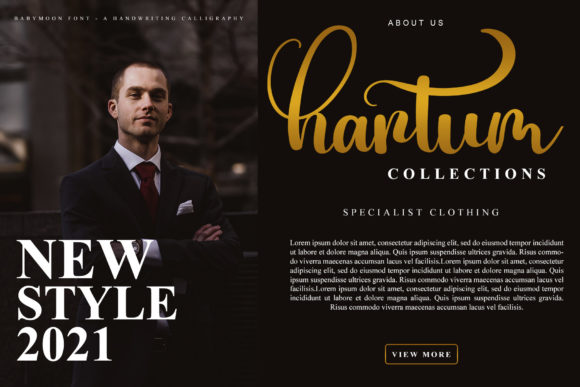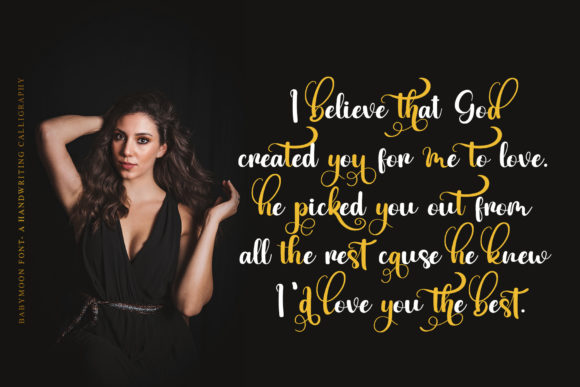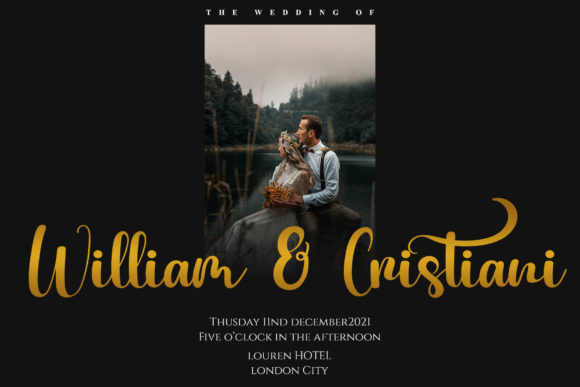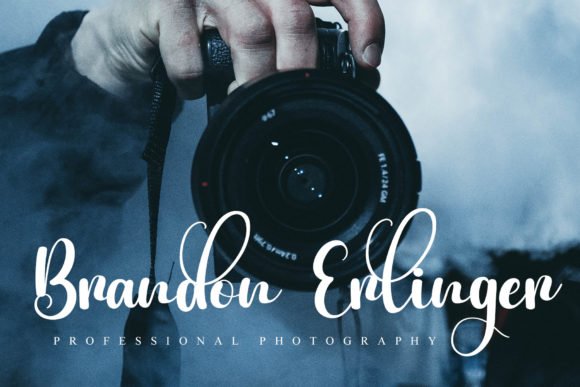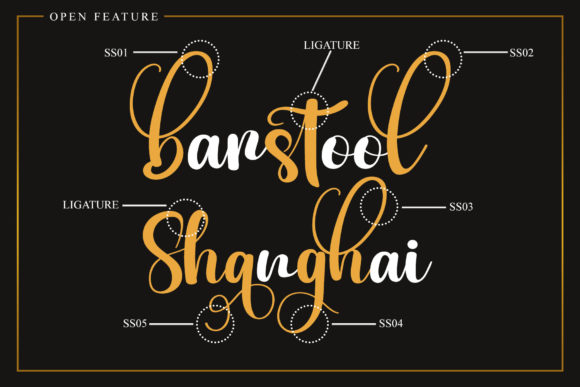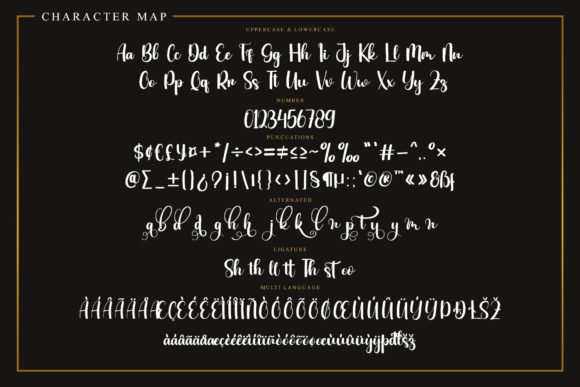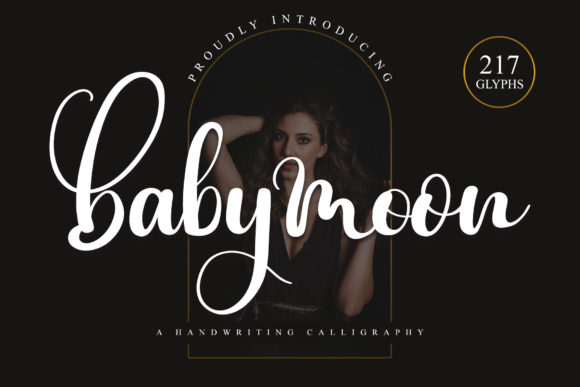
Babymoon Font: The Ultimate Guide to this Exquisite Handwritten Font
Are you a designer or crafter looking for a font that exudes elegance and sophistication? Look no further than the Babymoon Font! This stunning handwritten font is designed to capture the hearts of creatives and non-creatives alike. In this comprehensive guide, we’ll dive into the world of Babymoon Font, exploring its features, benefits, and uses.
What is Babymoon Font?
Babymoon Font is a beautifully crafted handwritten font that seamlessly blends classic calligraphic influences with modern flair. Its exquisite design makes it perfect for a wide range of creative projects, from wedding invitations and branding materials to digital content and craft files. This font is sure to become a true favorite among designers and crafters.
Key Features of Babymoon Font
• PUA Encoding: Babymoon Font is PUA (Private Use Area) encoded, which means you can easily access all glyphs and swashes. This feature allows for effortless customization and flexibility in your designs.
• Handwritten Elegance: The font boasts a beautiful, handwritten aesthetic that’s perfect for creating sophisticated and eye-catching designs.
• Contemporary and Fresh: Despite its classic influences, Babymoon Font feels modern and fresh, making it suitable for a wide range of creative applications.
• Classy Calligraphic Influences: The font’s calligraphic roots are evident in its elegant strokes and flourishes, adding a touch of refinement to any design.
Benefits of Using Babymoon Font
So, why should you choose Babymoon Font for your next creative project? Here are just a few benefits:
• Unique and Eye-Catching Designs: With Babymoon Font, you can create stunning designs that stand out from the crowd.
• Time-Saving: The font’s PUA encoding and extensive character set save you time and effort when working on complex designs.
• Versatility: Babymoon Font is suitable for a wide range of creative applications, from digital content to print materials.
• Elegance and Sophistication: The font’s classic calligraphic influences and modern flair make it perfect for designs that require a touch of elegance and sophistication.
Uses of Babymoon Font
Babymoon Font is an incredibly versatile font that can be used in a variety of creative projects, including:
• Wedding Invitations and Stationery: The font’s elegant design makes it perfect for wedding invitations, save-the-date cards, and other stationery.
• Branding and Packaging: Babymoon Font is ideal for creating luxurious branding materials, such as logos, business cards, and product packaging.
• Digital Content: The font can be used to create engaging digital content, such as social media graphics, blog posts, and email newsletters.
• Craft Files and DIY Projects: Babymoon Font is a great choice for crafters and DIY enthusiasts, perfect for creating custom signs, banners, and other decorative items.
Tips for Using Babymoon Font
To get the most out of Babymoon Font, here are a few tips:
• Experiment with Swashes and Glyphs: Take advantage of the font’s PUA encoding and explore the various swashes and glyphs to add unique touches to your designs.
• Pair with Other Fonts: Combine Babymoon Font with other fonts to create interesting and dynamic typography.
• Use in Combination with Images: The font’s elegant design pairs beautifully with images, making it perfect for creating stunning visual content.
Font Name Babymoon Font
In conclusion, Babymoon Font is a truly exquisite handwritten font that’s perfect for designers and crafters looking to add a touch of elegance and sophistication to their creative projects. With its PUA encoding, classy calligraphic influences, and modern flair, this font is sure to become a favorite among creatives. Whether you’re working on wedding invitations, branding materials, digital content, or craft files, Babymoon Font is an excellent choice.